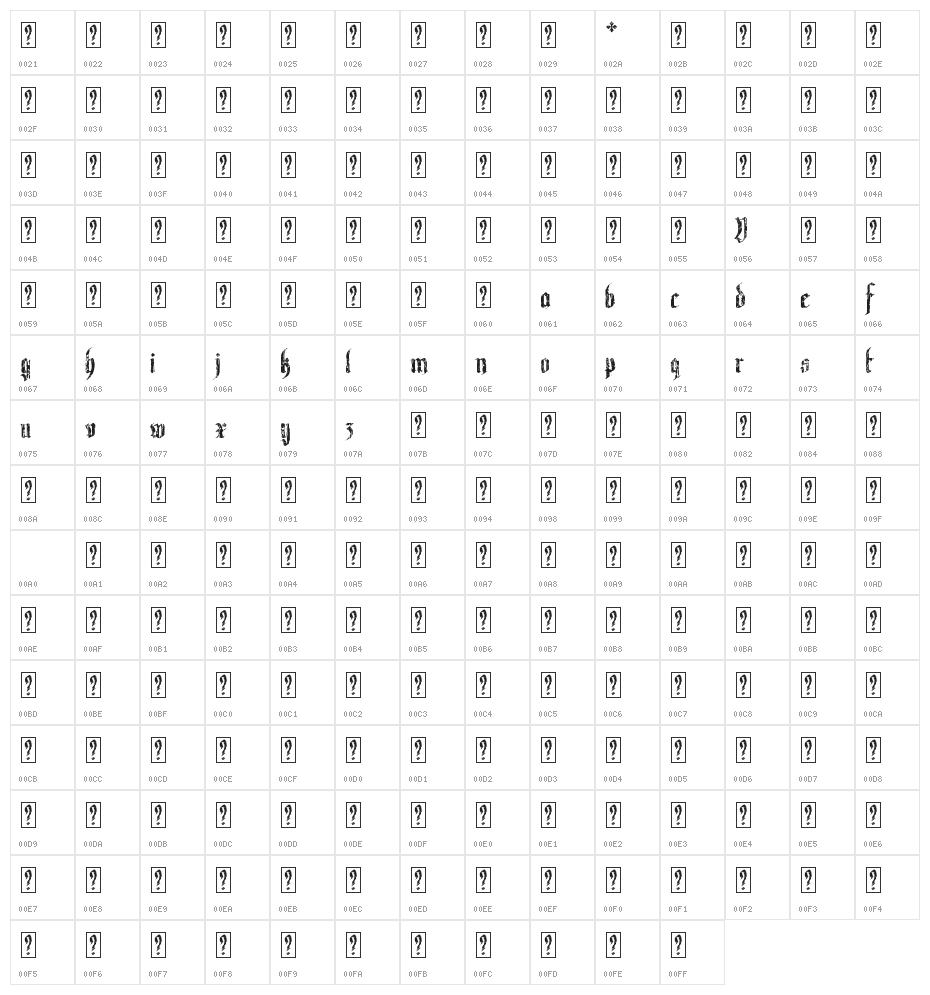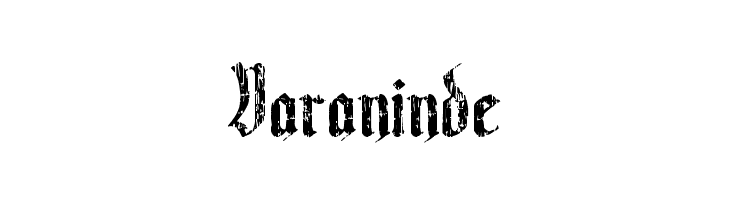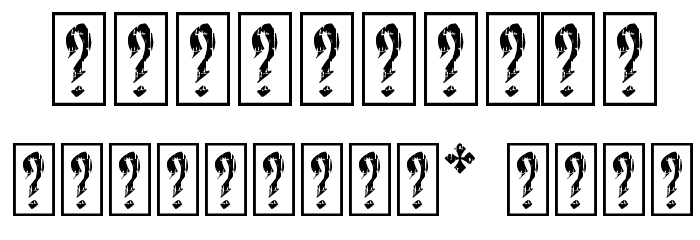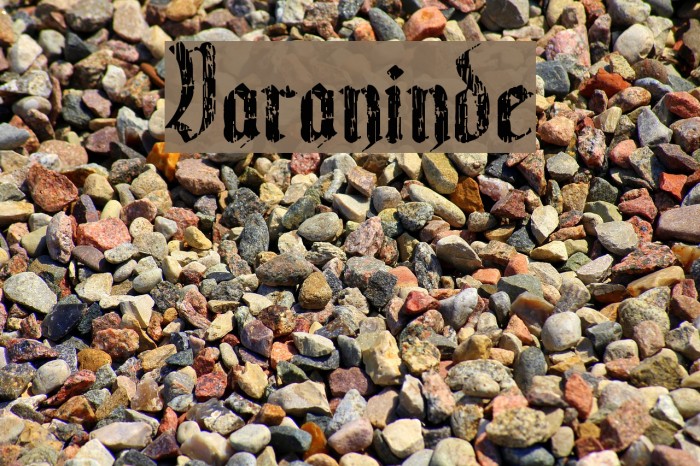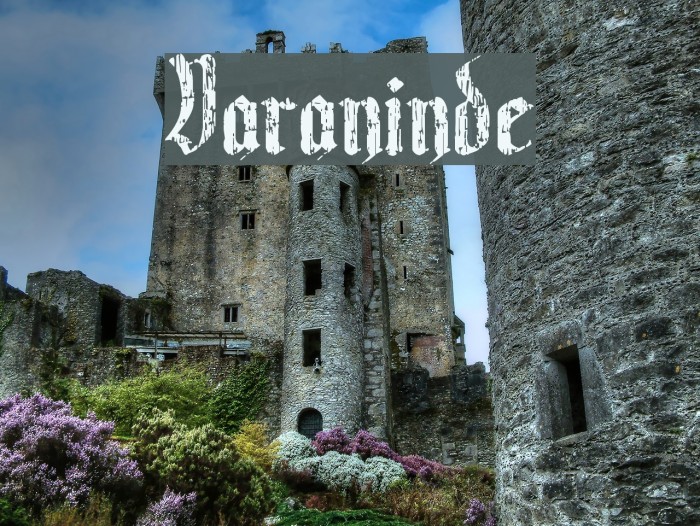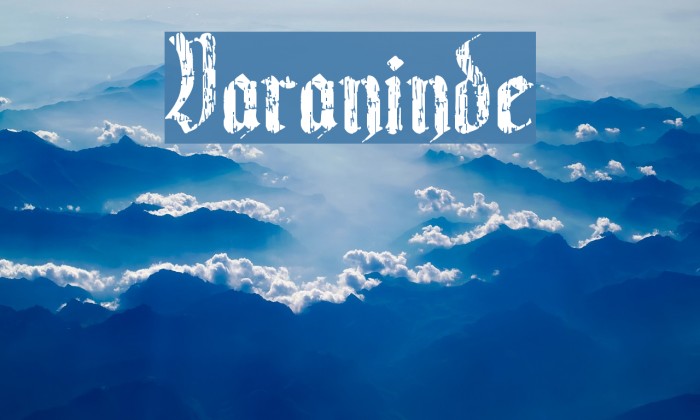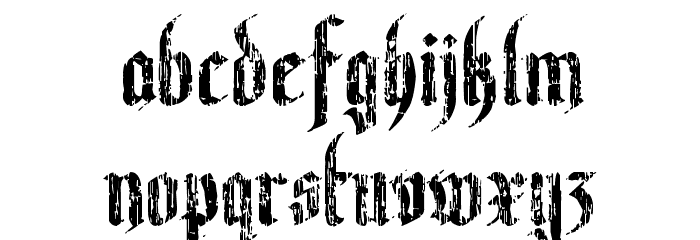
Varaninde Font
Varaninde Description
This font exhibits a distressed, grunge style with a blackletter influence, characterized by its sharp, angular strokes and textured appearance. The uppercase letters are bold and commanding, while the lowercase letters maintain a consistent style with slightly more fluidity. The numerals and special characters follow the same rugged aesthetic, making the font suitable for designs that require a vintage or gothic touch. The overall appearance is both dramatic and eye-catching, ideal for creating a strong visual impact.
| Overall Style | Vintage, Gothic, Decorative |
| Proposed Projects | Ideal for album covers, posters, branding for alternative or gothic-themed events, and any design needing a vintage or edgy look. |